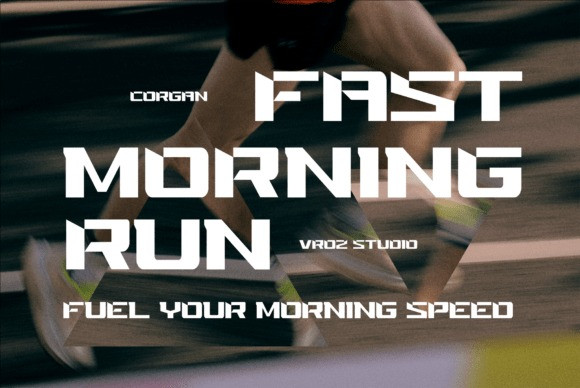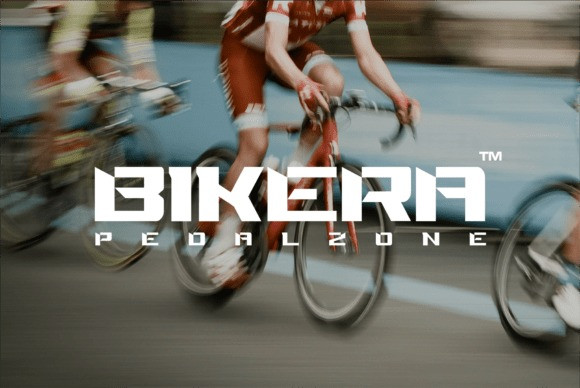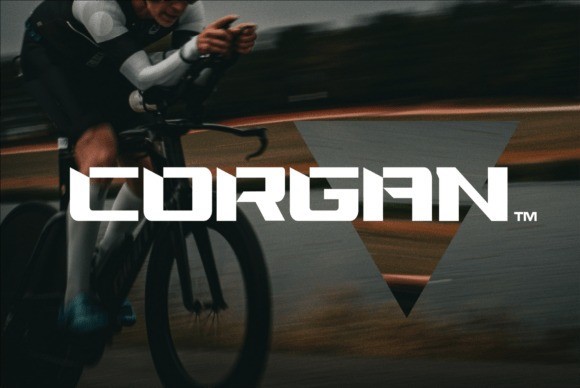
Corgan Font
Corgan Font a vibrant display typeface steeped in the thrills of modern sports theory, motorsport culture and the prowess of runway-esque branding. Flaunting sleekly chiseled contours, streamlined visage, and an audacious futuristic persona, this font engineers a sense of unstoppable momentum, robust power and unwavering resolution into each of your projects.
Corgan Sports is the haute couture of the font universe – an exemplar choice for sports insignias, speed-chasing themes, esports trademarks, wellness-centric branding, event signage and vivacious social media content. Its commanding visual dynamism emerges victorious in fiercely competitive landscapes, making it the champion of eye-catching headlines, team emblems, promotional assets, and product tagging. Compact yet versatile, Corgan Sports delivers a lightning-fast, audacious, and polished aesthetic to any creative endeavor.